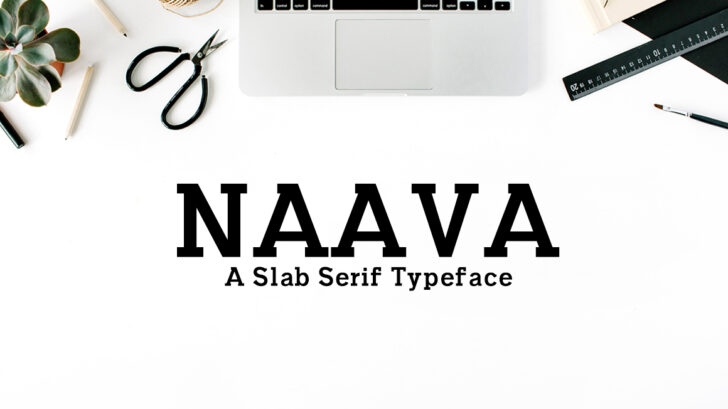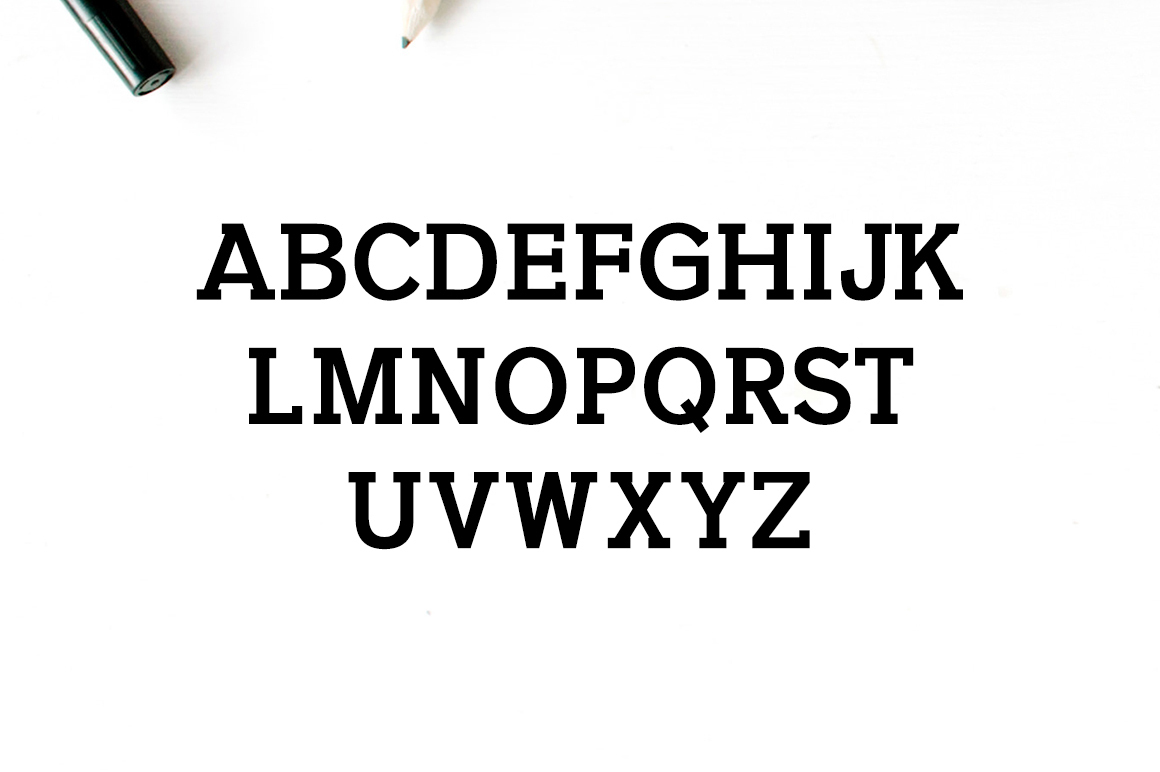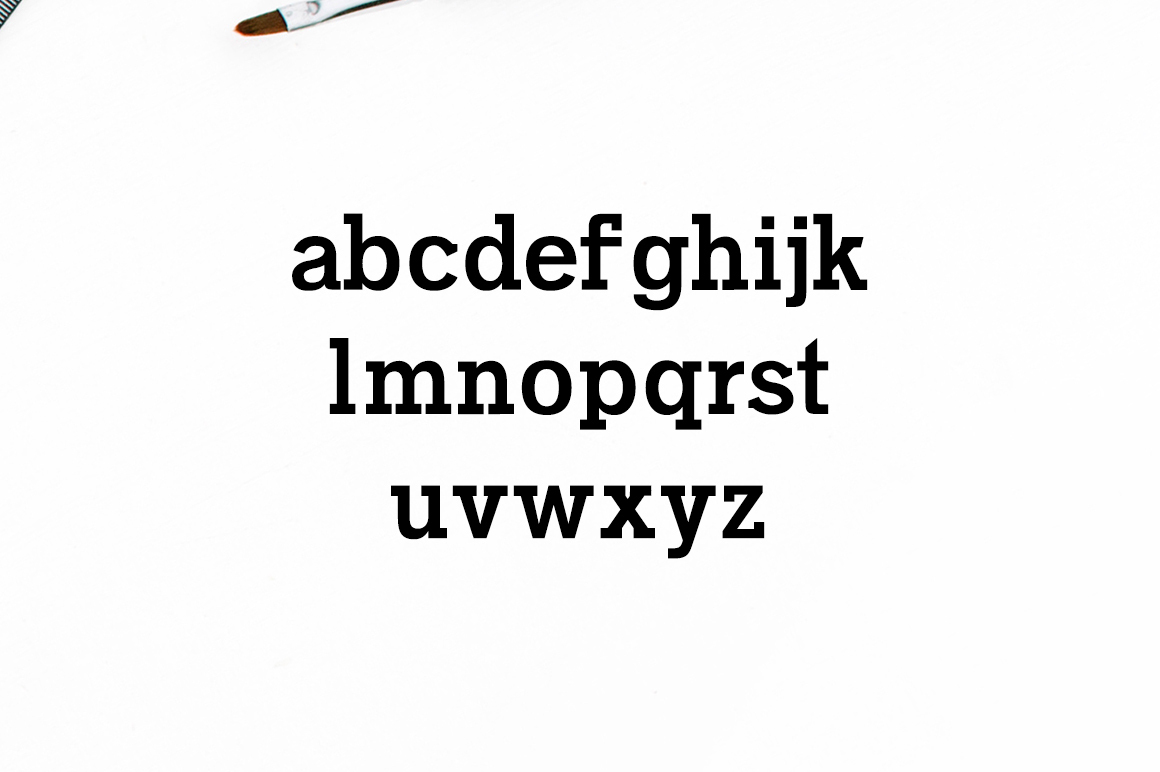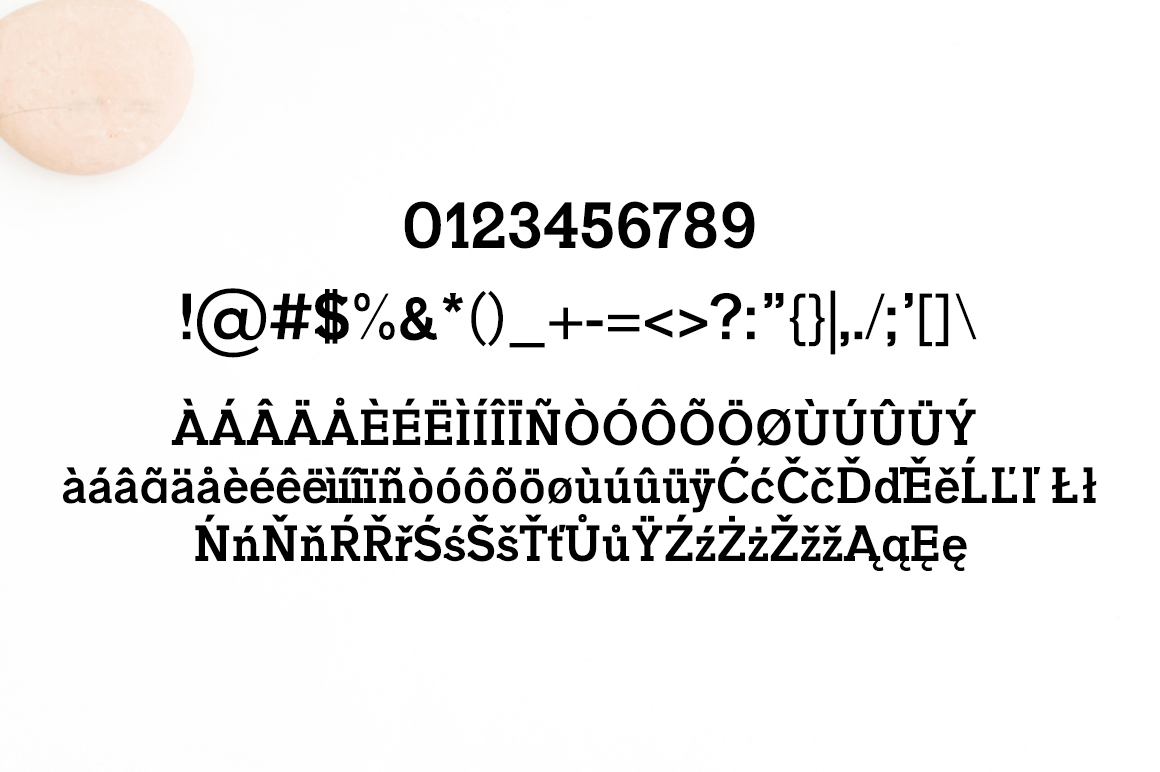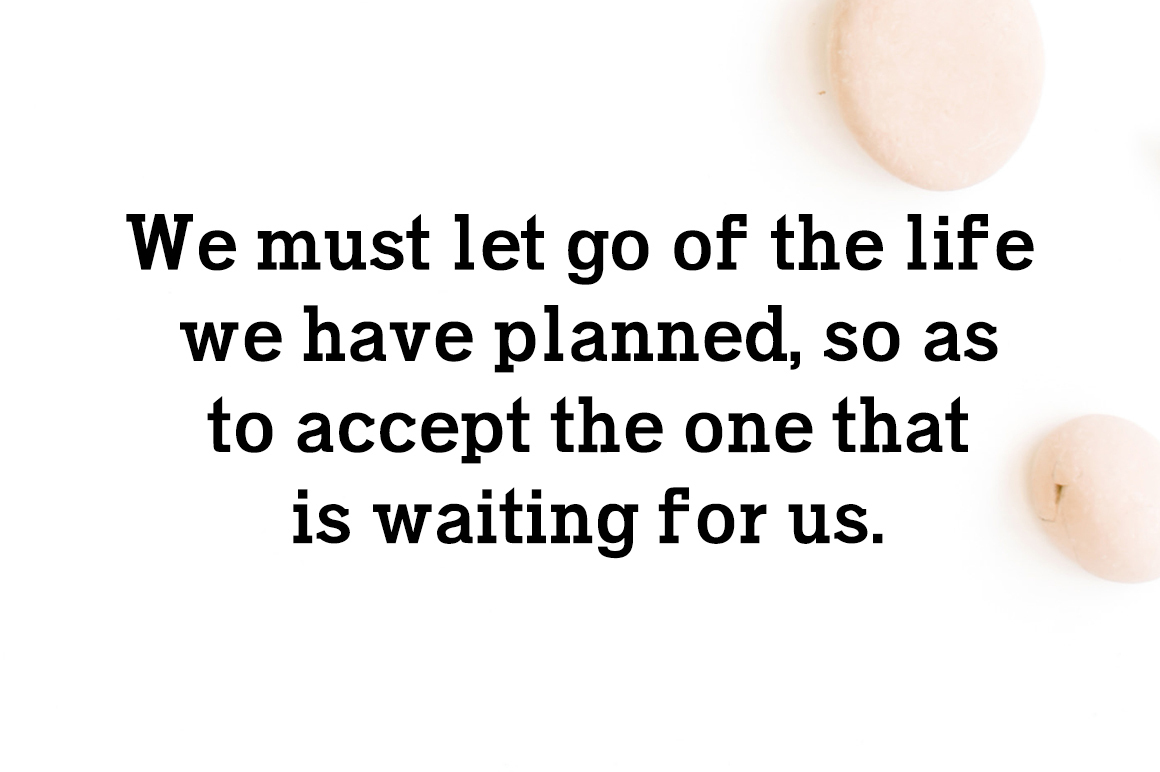
Naava Font
NASYA FONT SPECIMEN
Nasya is a gorgeous modern slab serif font that comes in 4 different weights, giving you the flexibility you need to make your designs impactful and unique. This font is both feminine and strong, and looks great across a wide range of design styles.